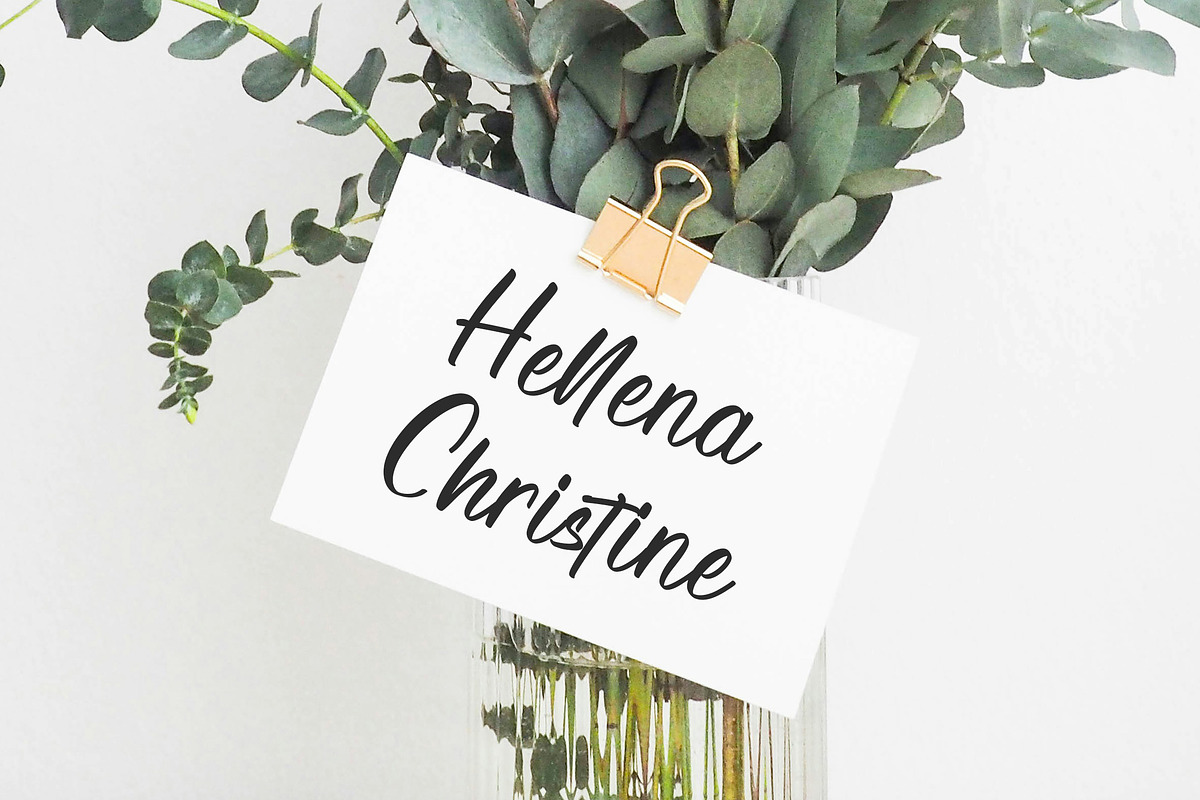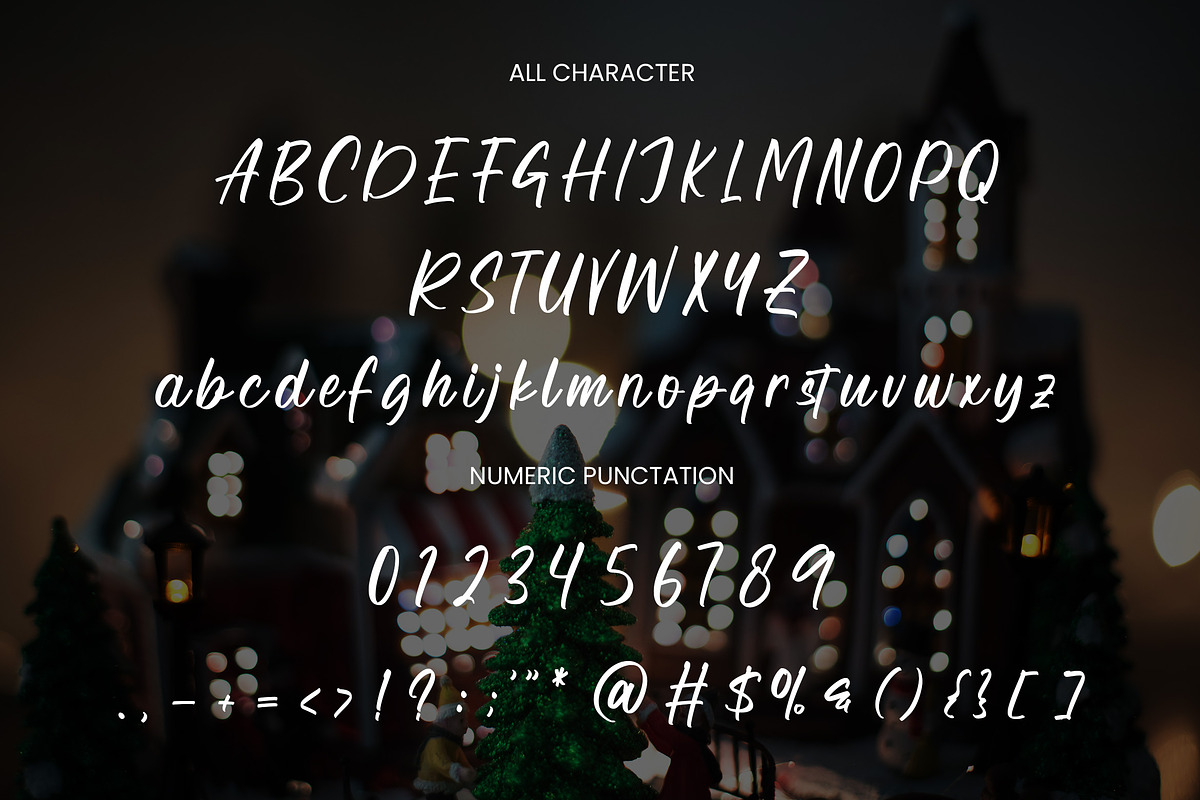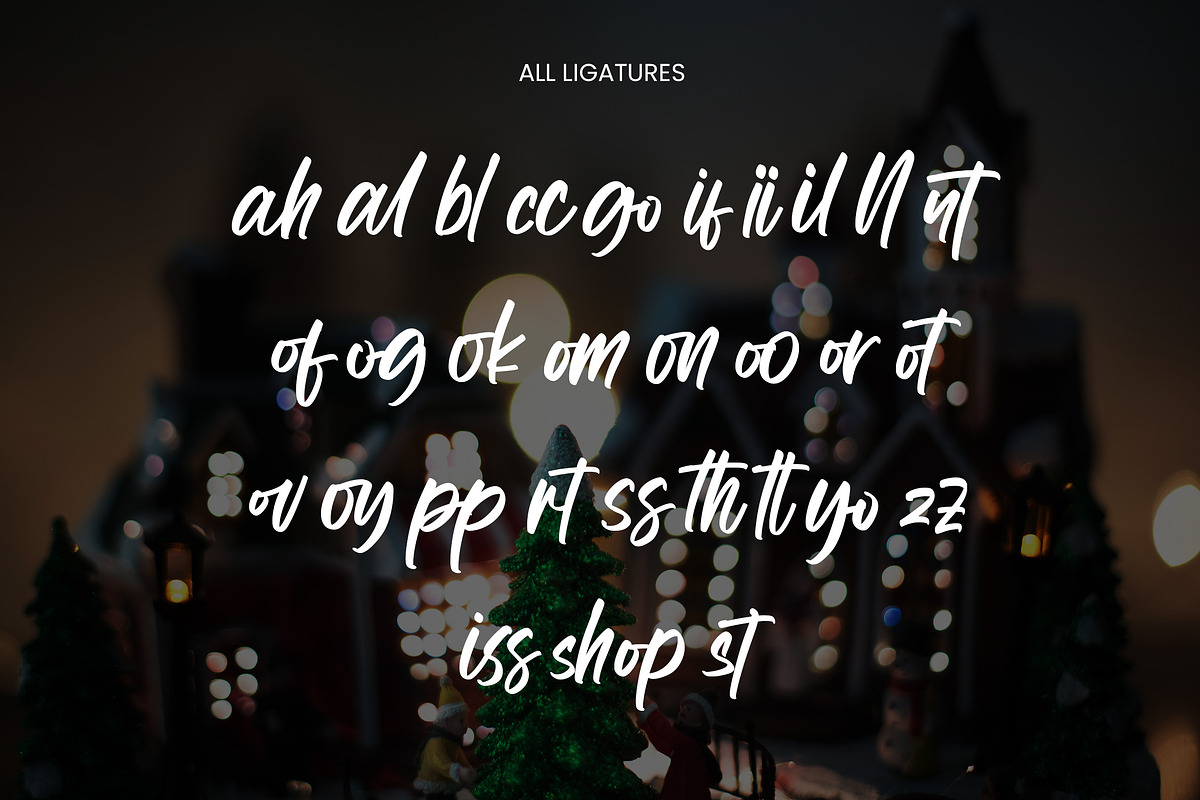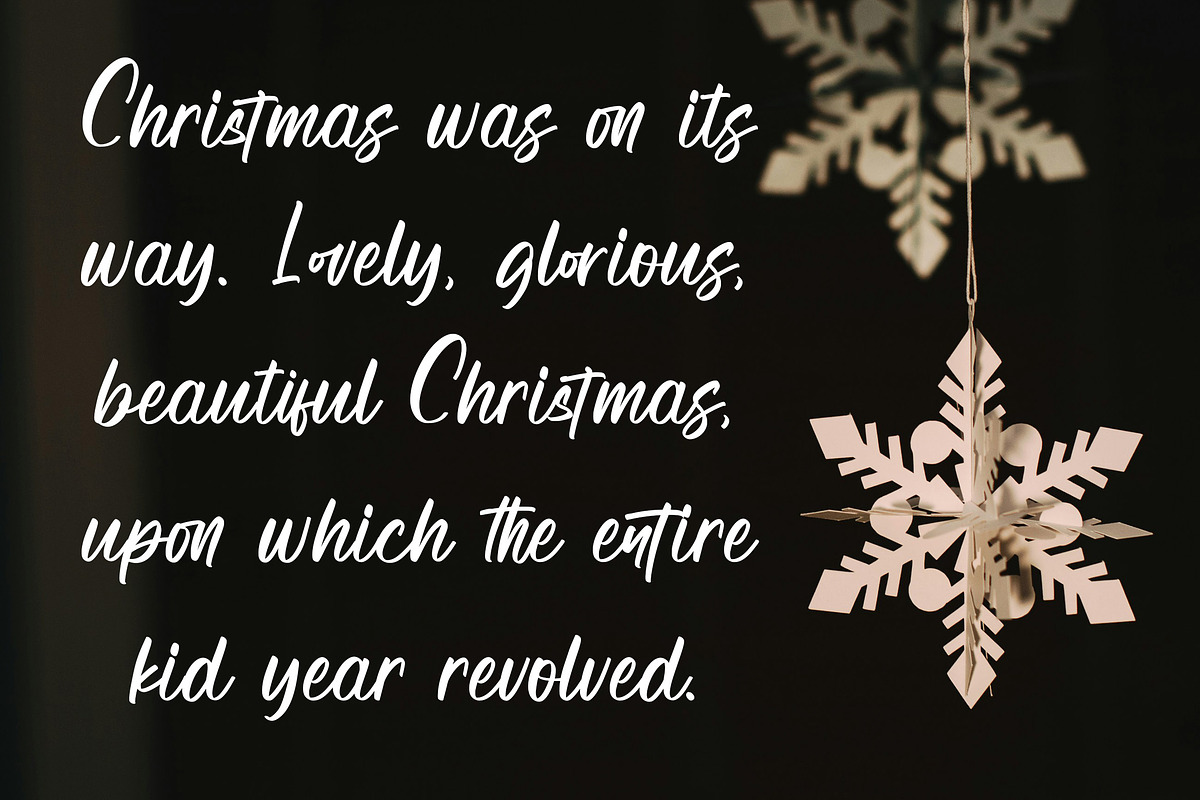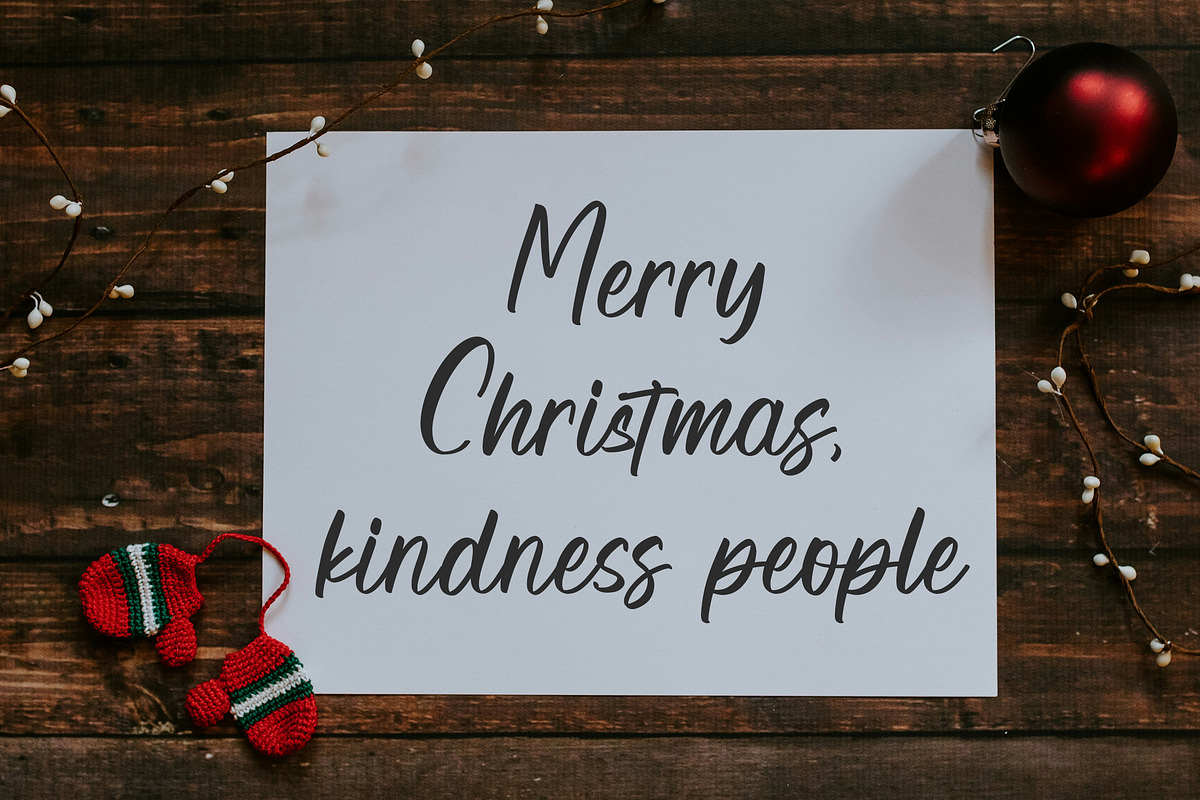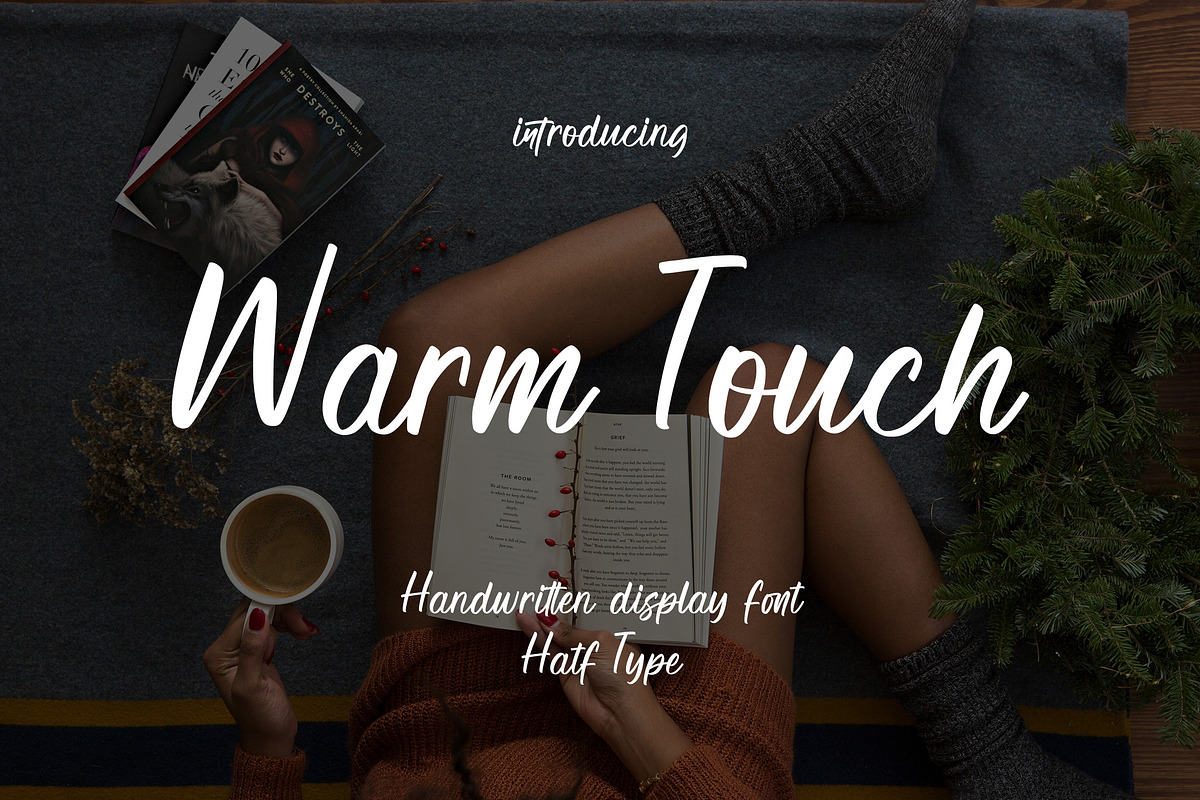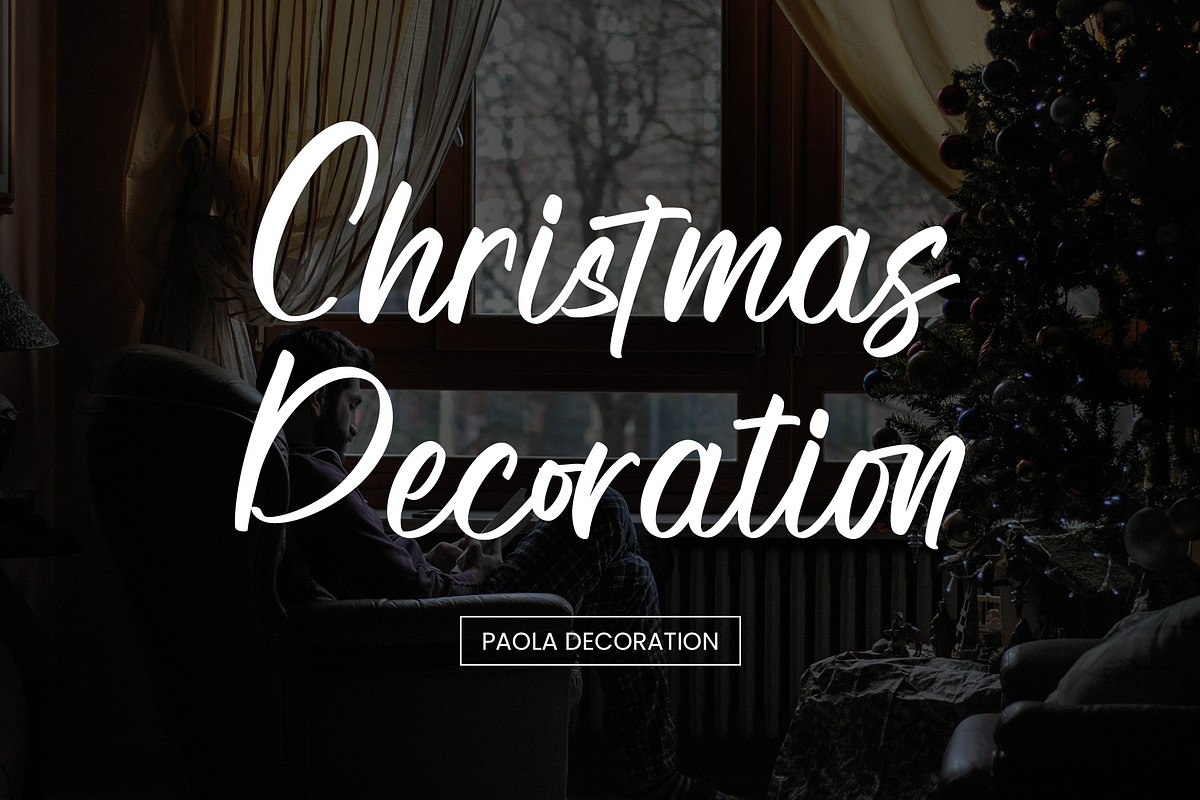
Warm Touch
WARM TOUCH is a handwritten font that exudes warmth and intimacy in every stroke. Its smooth and natural design gives a personal impression, like a pen stroke created with love and care. Suitable for various creative needs, such as wedding invitations, inspirational quotes, to branding that requires a human touch.
This font is designed to convey warm emotions with a style that remains elegant. Its soft yet firm lines provide the perfect balance between simplicity and modern aesthetics. WARM TOUCH is the ideal choice to make your designs feel closer, personal, and full of feelings.
Bring softness and a touch of affection into every design project with WARM TOUCH Handwritten Display Font.